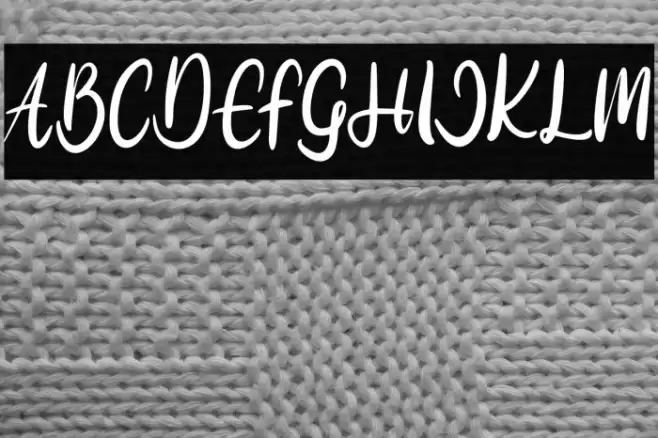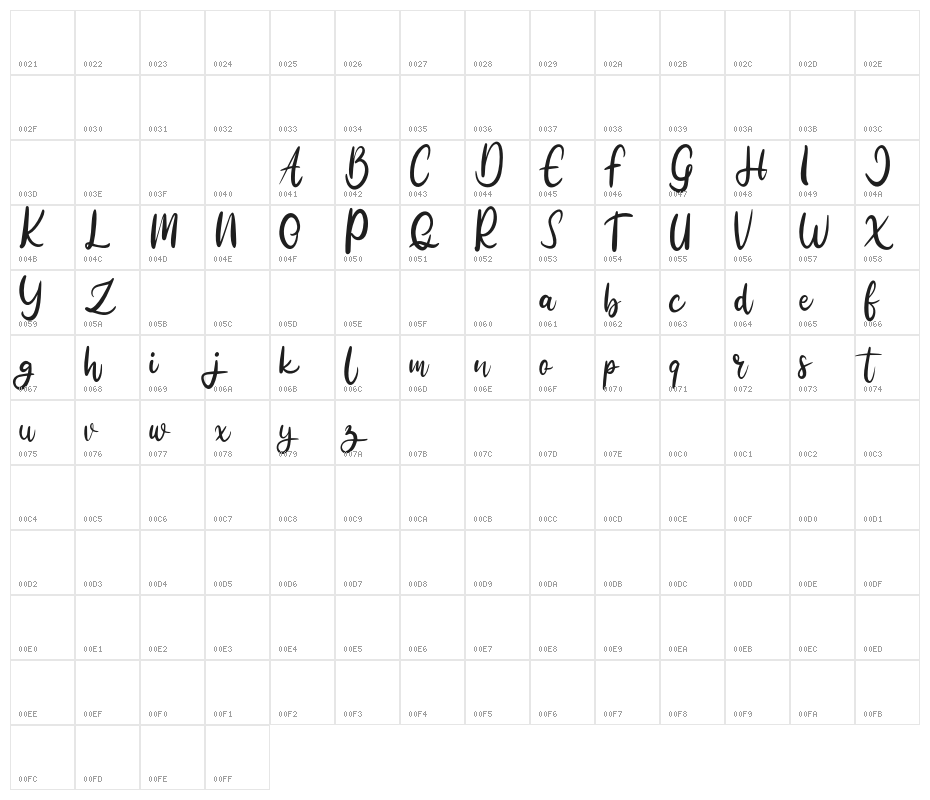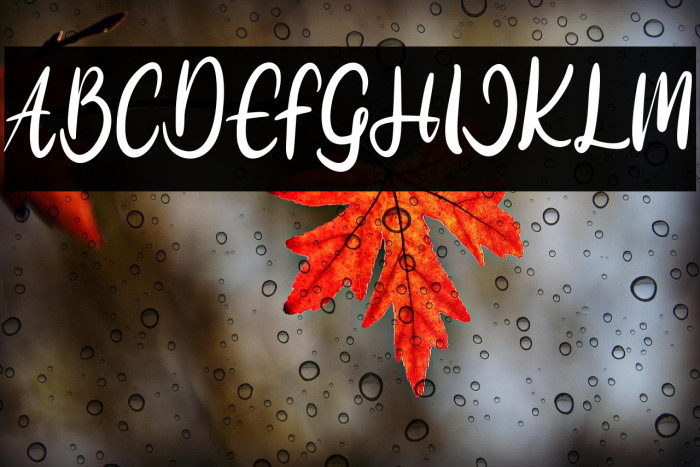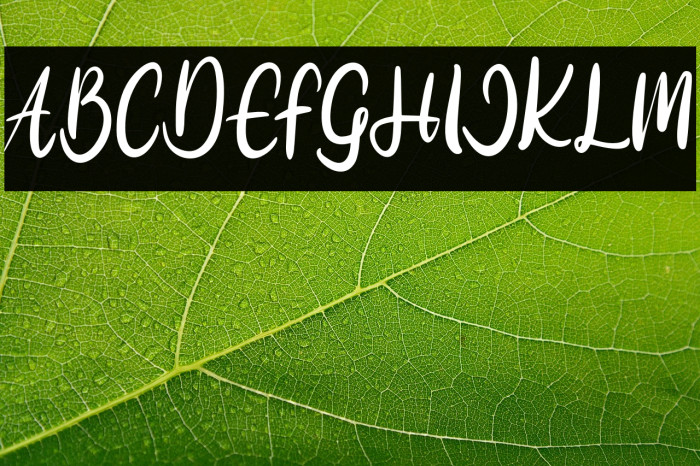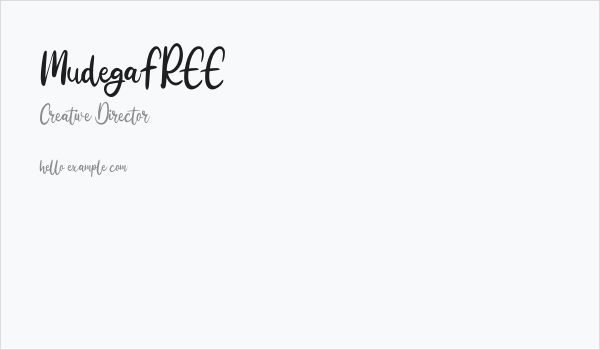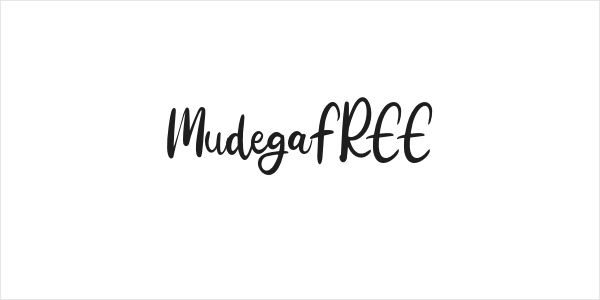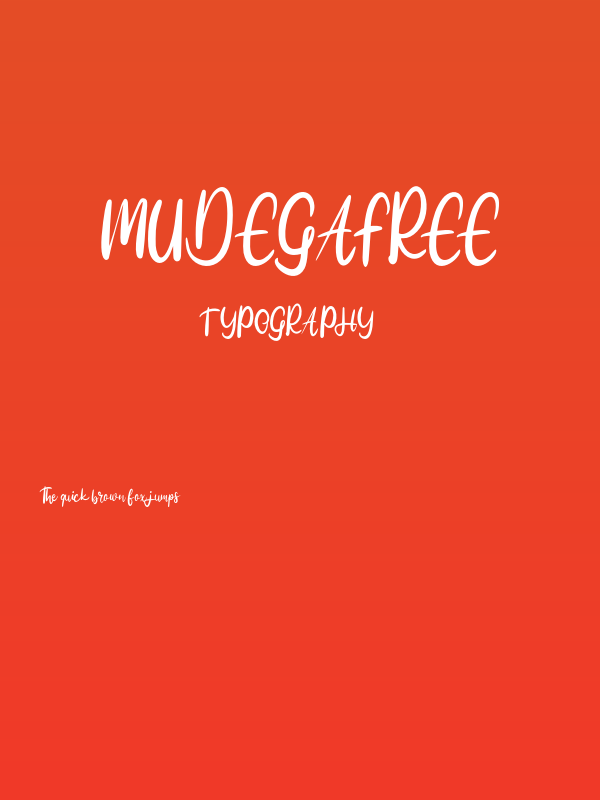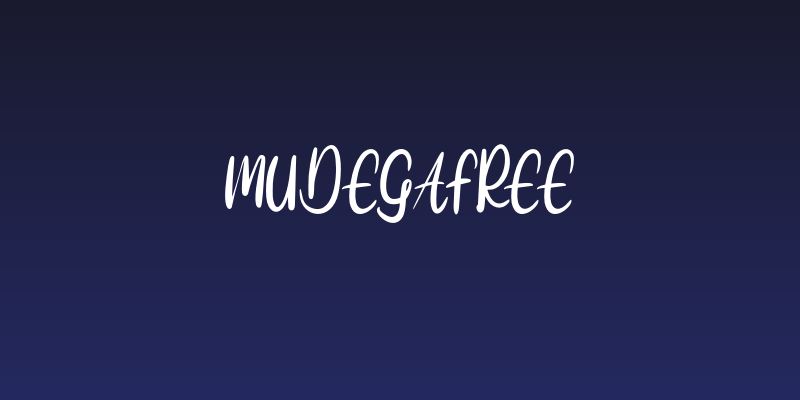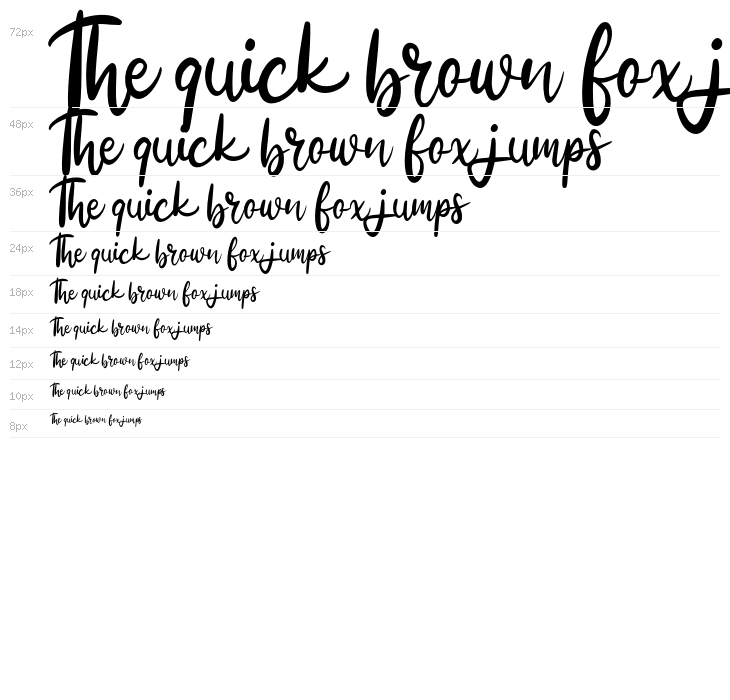
MudegaFREE Font
MudegaFREE Description
This font features a lively and flowing script style, characterized by its smooth, cursive strokes and a playful yet elegant appearance. The uppercase letters are bold and slightly slanted, giving a sense of movement and dynamism. The lowercase letters maintain a consistent flow, with some characters featuring unique loops and swirls that add to the font's charm. The numbers and special characters are designed to match the overall aesthetic, ensuring a cohesive look across all text. This font is perfect for projects that require a personal touch, such as invitations, greeting cards, or branding materials.
A lively, flowing script font with elegant, cursive strokes from Uncategorized fonts.
- Font: MudegaFREE
- Proposed Projects: Ideal for invitations, greeting cards, branding, and personal projects.
- Use Case: Logos, Headlines, Invitations